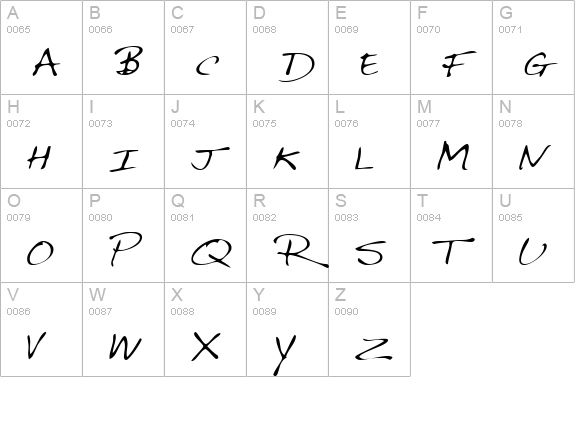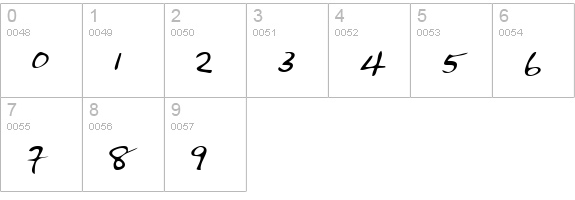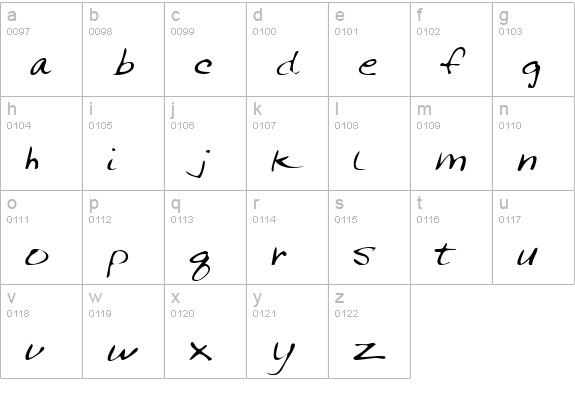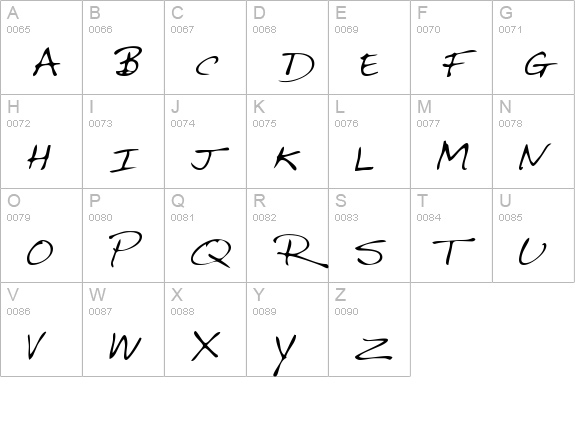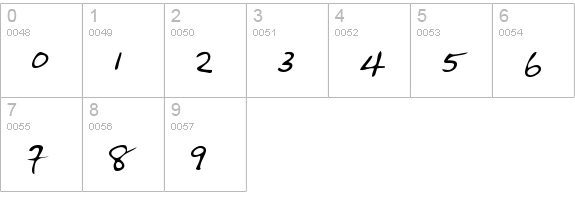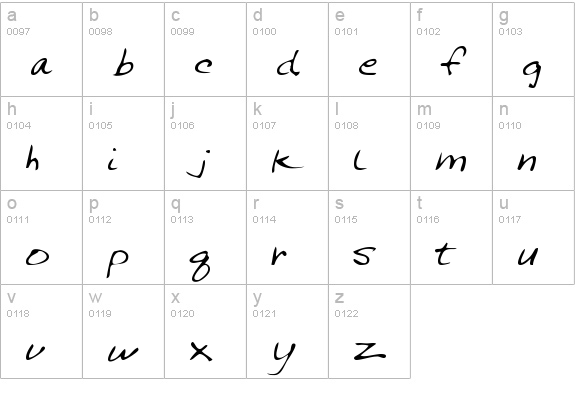
JeremysHand Regular is the standard, neutral variant in the JeremysHand typeface family \xE2\x80\x94 well suited to general body text, paragraphs, and standard typographic work.
Jeremy's Hand Regular font is a charming and versatile typeface that exudes personality and creativity. With its handwritten style and unique flourishes, this font is perfect for adding a personal touch to your designs. Whether you're working on a project that requires a playful and whimsical feel or you simply want to make a statement with your typography, Jeremy's Hand Regular has got you covered. Best of all, Jeremy's Hand Regular font is available for free download at FontsMarket.com. This means you can start using this eye-catching and dynamic font in your designs without any cost. So don't wait any longer, add Jeremy's Hand Regular to your font collection today and let your creativity soar!